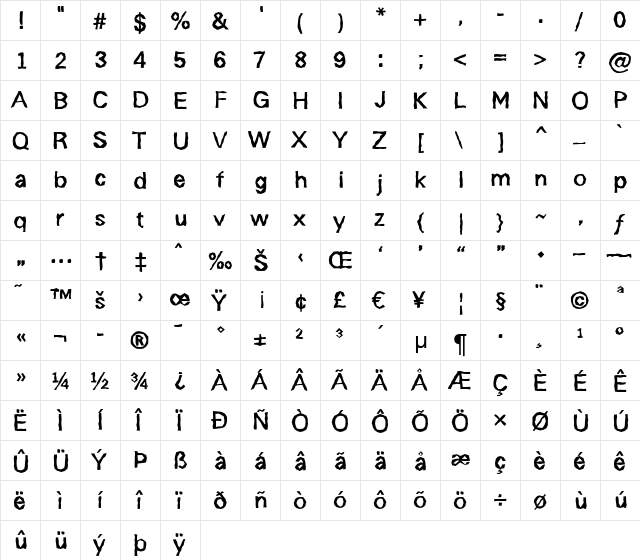
a_ReportSansBrk Regular
| Designer | W.Chufarofsky & M.Slutsker |
Design Context for a_ReportSansBrk Typeface
a_ReportSansBrk is a composed and adaptable typeface that performs quietly and consistently across a wide range of design contexts.